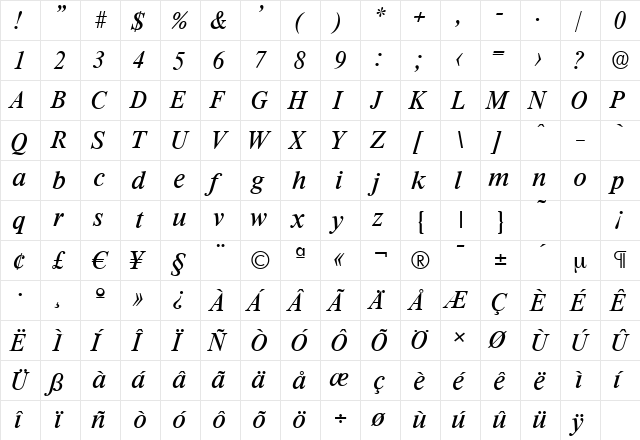
RiccioneSerial Italic
Design Context for RiccioneSerial Typeface
RiccioneSerial offers clean, dependable letterforms without strong stylistic allegiance, making it a practical choice for designers who need flexibility. Its italic angle brings a sense of urgency and motion to the letterforms.
Pro Tip: Use RiccioneSerial for emphasis, pull quotes, and subheadings where its slanted energy can add rhythm to the layout.